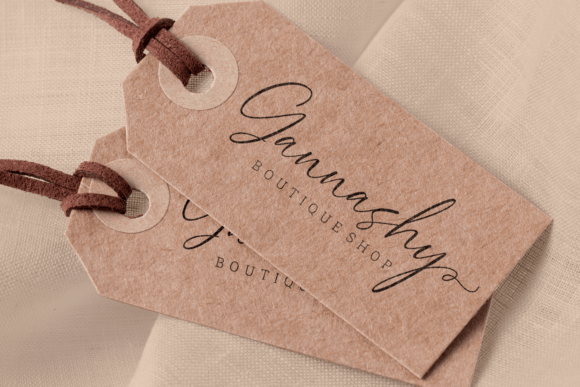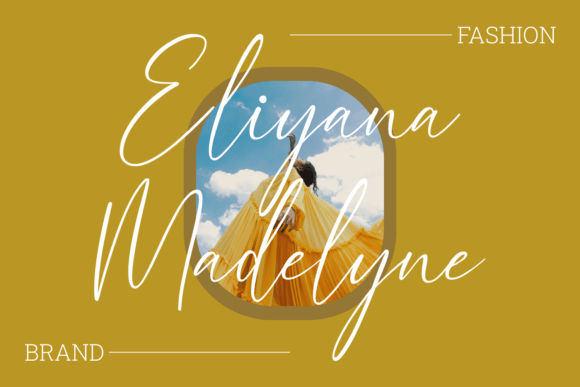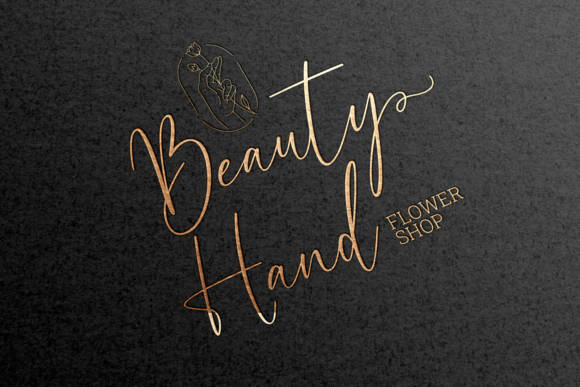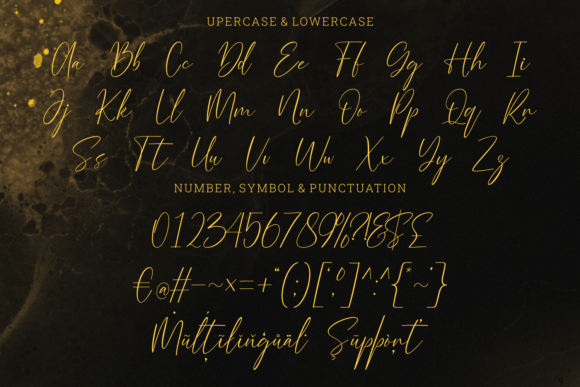
Introducing Haulman Font: Elevate Your Designs with Elegance and Sophistication
In the world of typography, a font can make or break a design. It’s the foundation upon which creativity is built, and the right choice can elevate a project from ordinary to extraordinary. For designers and crafters looking for a script font that embodies elegance and sophistication, look no further than Haulman Font. This dazzling script font is meticulously crafted with high attention to detail, making it a wonderful asset to any font library.
What Makes Haulman Font Stand Out?
Haulman Font is not just any script font; it’s a comprehensive typographic solution designed to enhance any creation. Its neat and highly detailed craftsmanship ensures that it stands out in a crowd, offering a unique flair to projects that require a touch of elegance. Whether you’re working on a branding project, a wedding invitation, a fashion blog, or any other creative endeavor, Haulman Font is versatile enough to fit seamlessly into your design.
One of the significant advantages of Haulman Font is that it is PUA (Private Use Area) encoded. This feature allows designers to access all glyphs and swashes with ease, providing a wide range of creative possibilities. PUA encoding ensures that users can unlock the full potential of the font, making it easier to customize and adapt to specific design needs. This means you can effortlessly incorporate swashes, alternates, and other special characters into your work, adding a layer of sophistication and uniqueness.
Applications of Haulman Font
The versatility of Haulman Font makes it suitable for a multitude of applications. Here are a few ideas to get you started:
- Branding and Logotypes: Use Haulman Font to create elegant and memorable logos that stand out.
- Wedding and Event Stationery: Add a touch of sophistication to invitations, menus, and thank-you cards.
- Fashion and Beauty: Elevate fashion blogs, product descriptions, and advertising materials with a stylish font.
- Packaging: Make your product packaging stand out with a font that exudes elegance and refinement.
Why Choose Haulman Font?
With so many fonts available, why choose Haulman Font for your projects? The answer lies in its unique blend of elegance, versatility, and usability. Here are a few compelling reasons:
- Unique Design: Haulman Font offers a distinct script style that can help your designs stand out.
- Highly Readable: Despite its elegant nature, the font remains highly readable, making it suitable for both headings and body text.
- Easy to Use: Thanks to PUA encoding, accessing and using the font’s features is straightforward.
Haulman Font is a stunning script font that can add a touch of elegance and sophistication to any design project. Its meticulous craftsmanship, combined with PUA encoding for easy access to glyphs and swashes, makes it a valuable addition to any designer’s font library. Whether you’re working on a branding project, event stationery, or any other creative endeavor, Haulman Font is sure to enhance your creations and help you achieve your design goals. So, why wait? Incorporate Haulman Font into your projects today and experience the difference it can make.